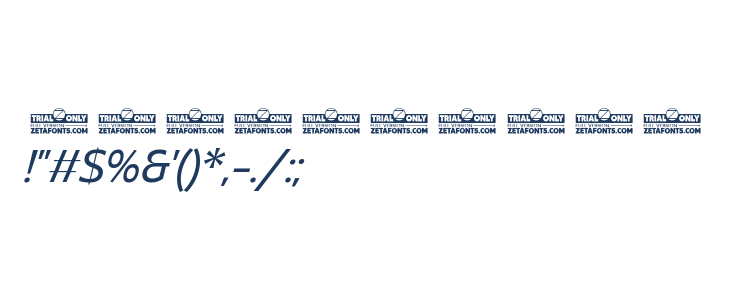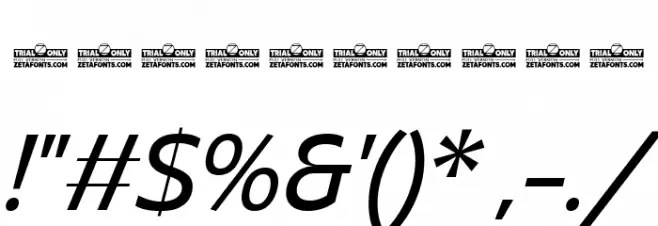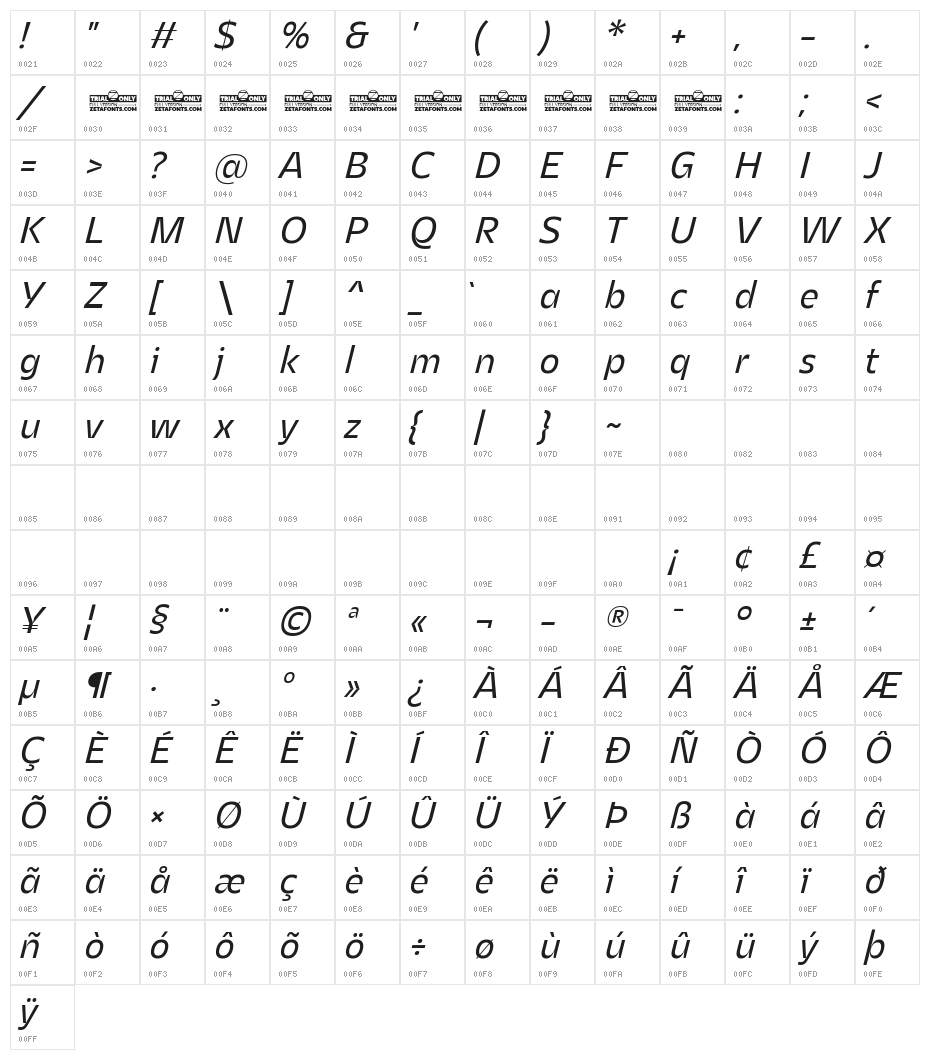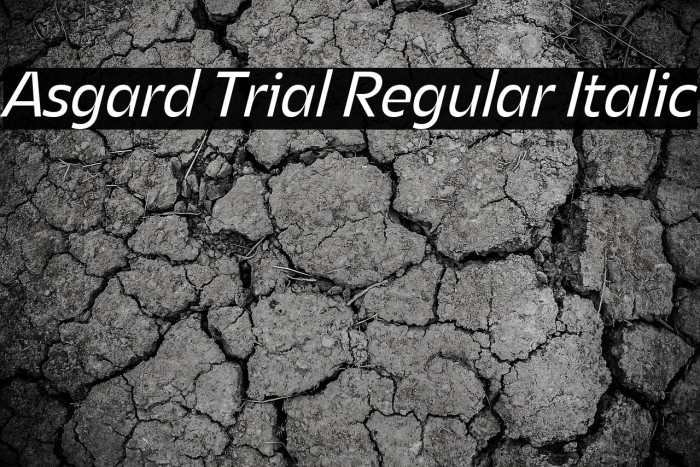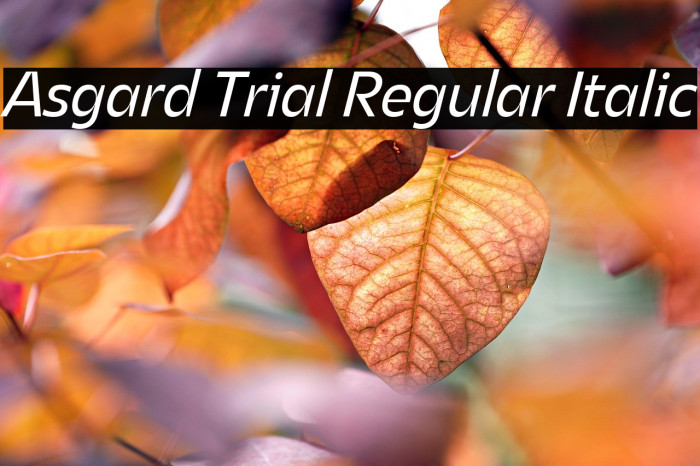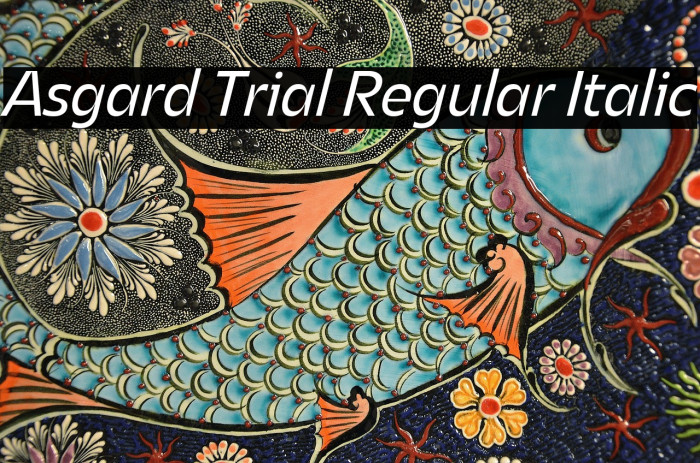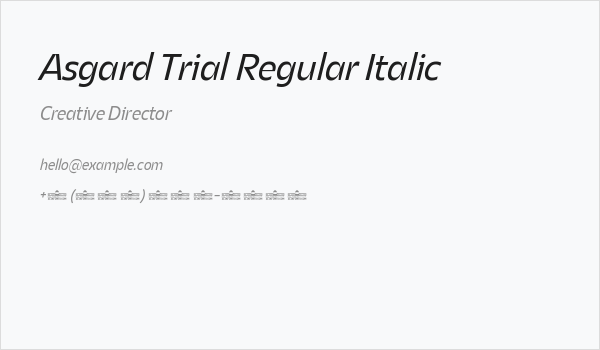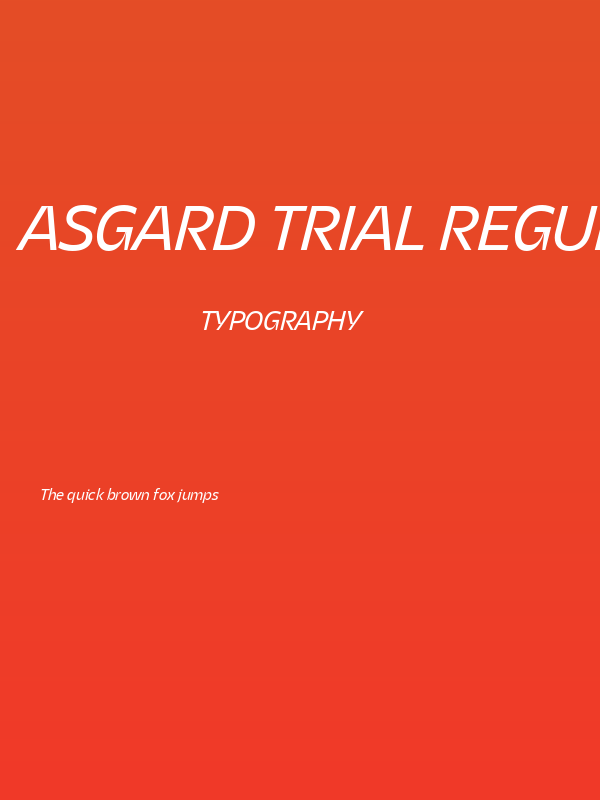
Asgard Trial Regular Italic Font
Asgard Trial Regular Italic Description
This font features a sleek and modern design with a slight italic slant, giving it a dynamic and forward-moving appearance. The characters are crafted with clean lines and a uniform stroke width, providing a sense of balance and clarity. The uppercase letters are bold and commanding, while the lowercase letters maintain a consistent style that complements the overall aesthetic. The numerals and special characters are designed to match the font's contemporary feel, making it versatile for various applications. The spacing between characters is normal, ensuring readability and a polished look.
| Proposed Projects | Ideal for branding, advertising, and editorial design projects where a modern and professional look is desired. |